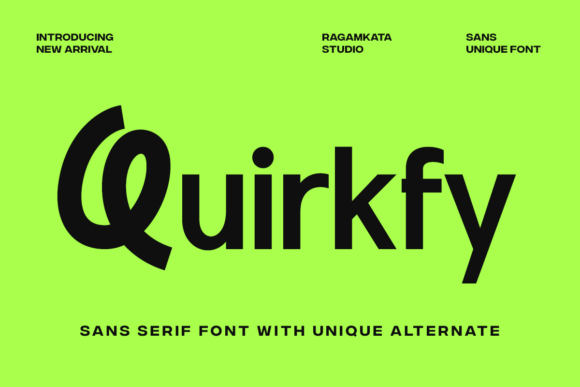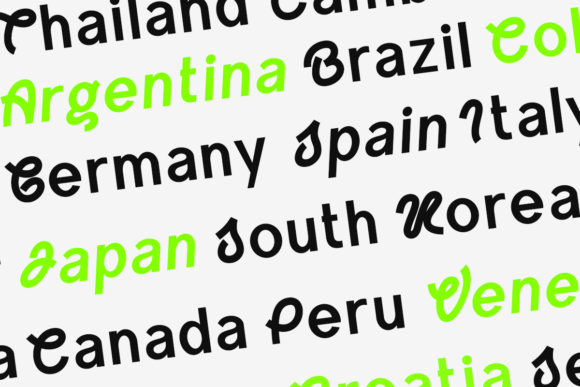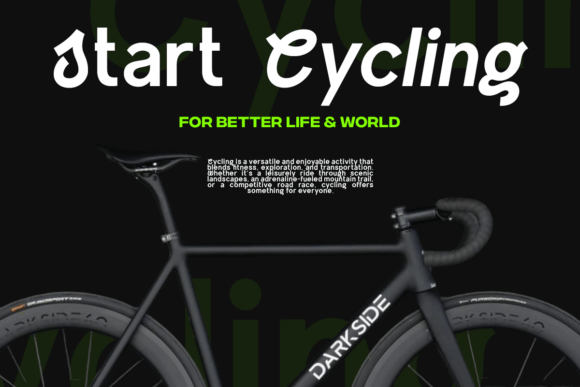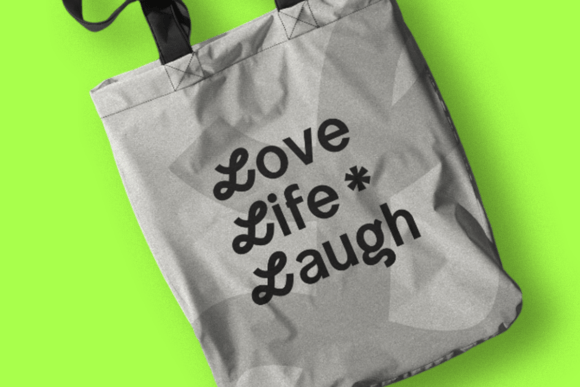
Quirkfy Font: Playful Sans Serif for Modern Branding & Logo Design
About the Quirkfy Font
Add a touch of class to your work with the Quirkfy Font, a truly exceptional typeface. Quirckfy – Unique Sans Font
Quirkfy is a bold sans-serif font with a unique and playful character, designed to stand out in modern design projects. Featuring distinctive alternate letterforms, this typeface strikes the perfect balance between clean minimalism and creative expression. Ideal for headlines, branding, packaging, and editorial design, Quirkfy adds a touch of personality to any visual composition.
Quirkfy’s bold personality makes it highly effective for headlines, logos, and short-form text in branding materials and posters. Its playful alternates add visual interest to packaging design and short editorial pieces. However, its distinctive forms and weight make it less suitable for body text or UI elements where readability over long passages is paramount.
Pairing Quirkfy effectively requires considering its energetic nature. A clean, geometric sans-serif like Montserrat provides a solid, legible counterpoint, balancing Quirkfy’s quirkiness. For a softer contrast, a classic serif like Garamond adds sophistication and refinement, while a script font like Pacifico can further enhance its playful side in specific applications.
The overall personality is best described as bold and playful, yet sophisticated. Brands seeking a modern, expressive, and memorable identity will find Quirkfy a strong asset, particularly those in creative industries like fashion, entertainment, or children’s products.